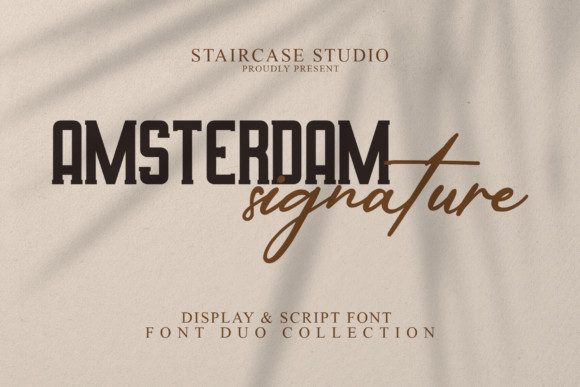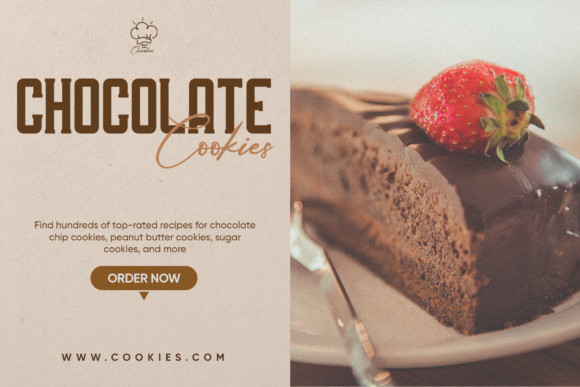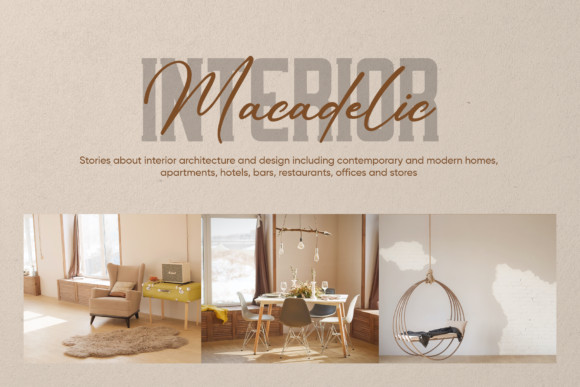
Amsterdam Signature Font
Amsterdam Signature is a spectacular duo font (display and script). Incredibly versatile, this font fits a wide pool of designs, elevating them to the highest levels. Add this font to your favorite creative ideas and notice how it makes them come alive!